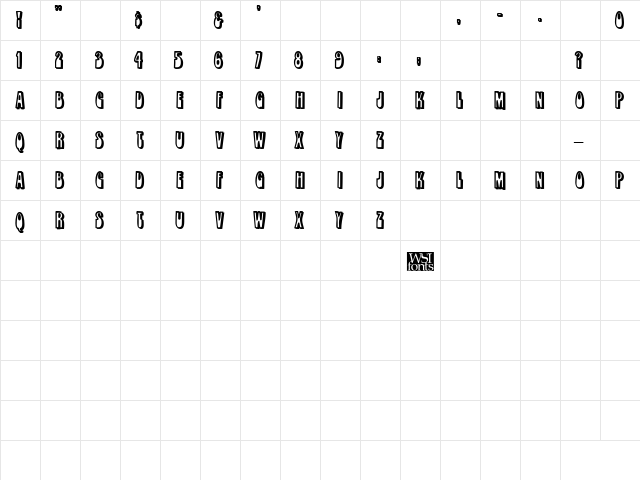
LopplerDisplay Bold Font Preview
LopplerDisplay Bold
Design Context for LopplerDisplay Typeface
LopplerDisplay is built around its visual character rather than neutral utility — its distinctive forms are designed to make an impression at display sizes. The heavy weight commands attention and anchors typographic hierarchies.
Font Pairing: Pair with a clean neutral sans-serif for body copy to let LopplerDisplay's character lead without overwhelming the composition.
Pro Tip: Use LopplerDisplay exclusively at display sizes — it was designed to be seen, not read at length. Let a neutral companion handle body copy.